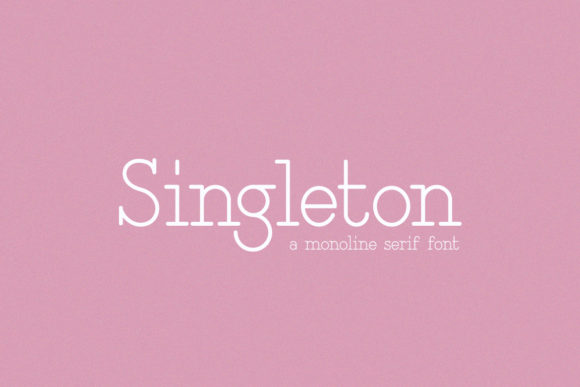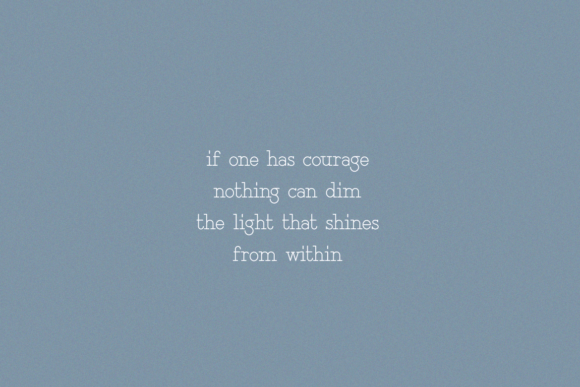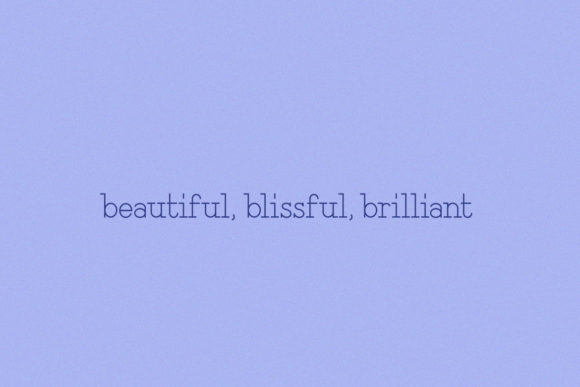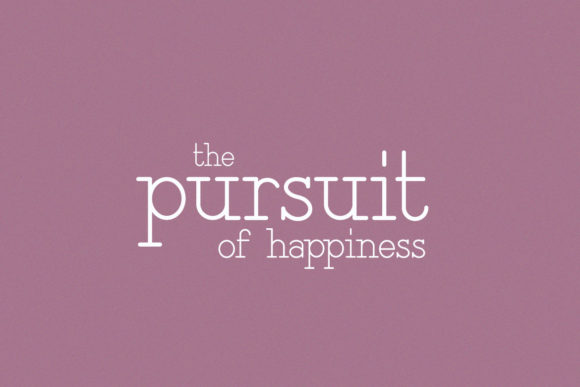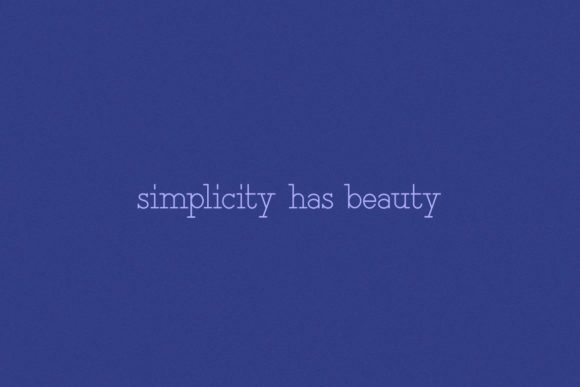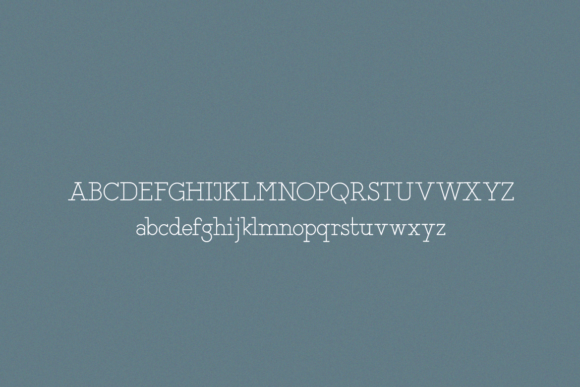
Singleton Font
Singleton is a neat and modern serif font. Simple and adaptable, this font will make each of your designs look great. Have fun with this beautiful font and explore its endless variations.